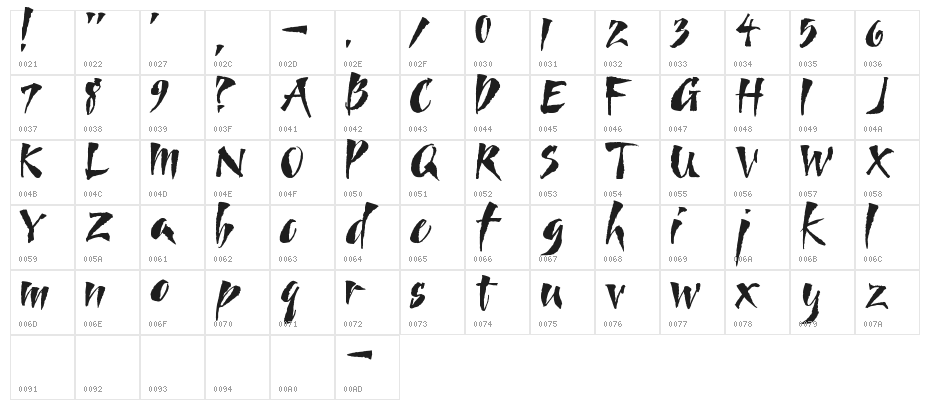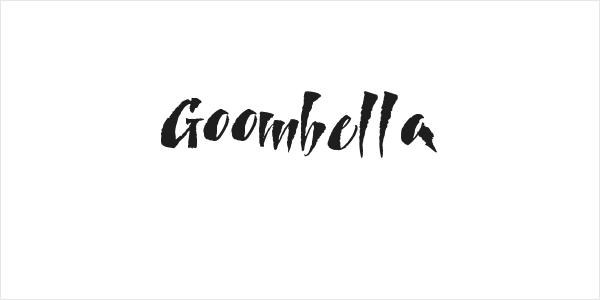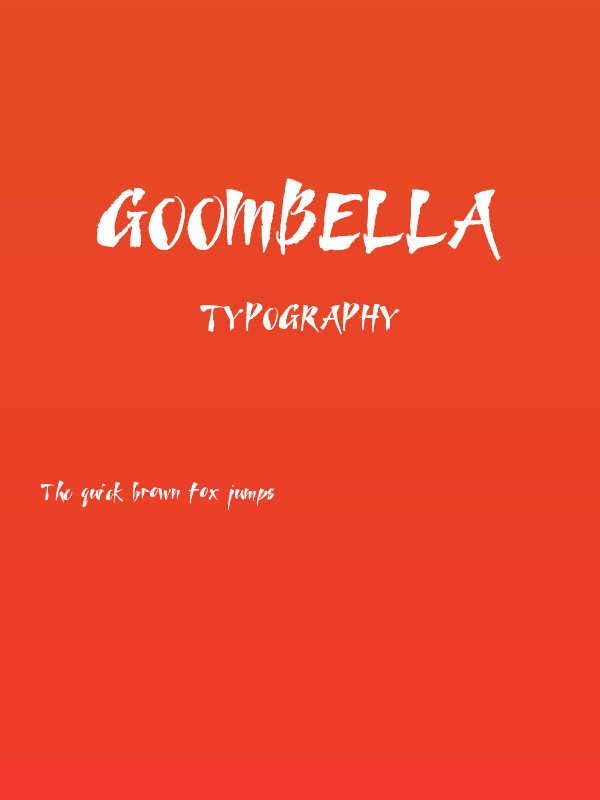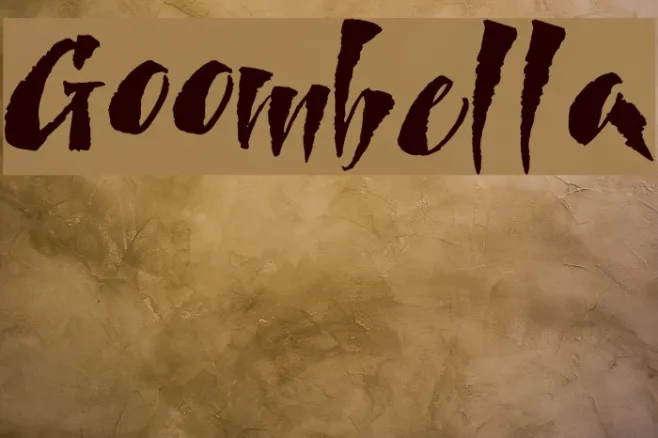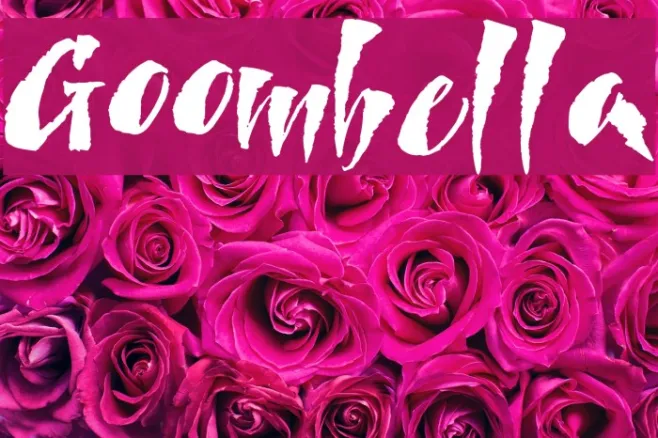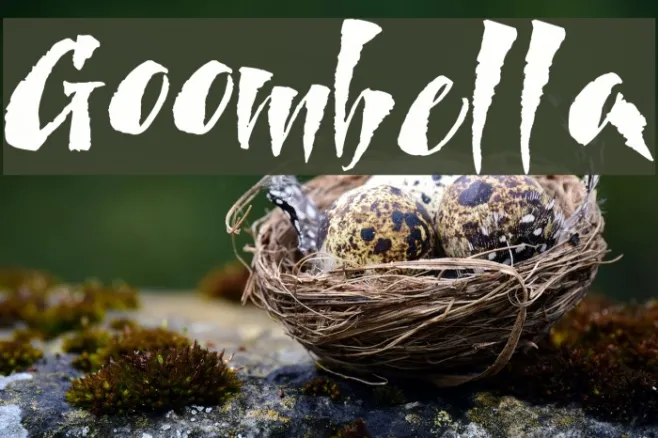
Goombella Font
Goombella Description
This font features a bold and expressive brush style, characterized by its dynamic and energetic strokes. The letters exhibit a hand-painted appearance, with varying thickness and a slightly irregular baseline, adding to its artistic flair. The uppercase letters are bold and commanding, while the lowercase letters maintain a playful yet sophisticated look. The numbers and special characters follow the same brush-like aesthetic, ensuring consistency across all glyphs. This font's unique style makes it stand out, perfect for projects that require a touch of creativity and individuality.
| Proposed Projects | Ideal for branding, posters, invitations, and any creative projects that require a distinctive, artistic touch. |